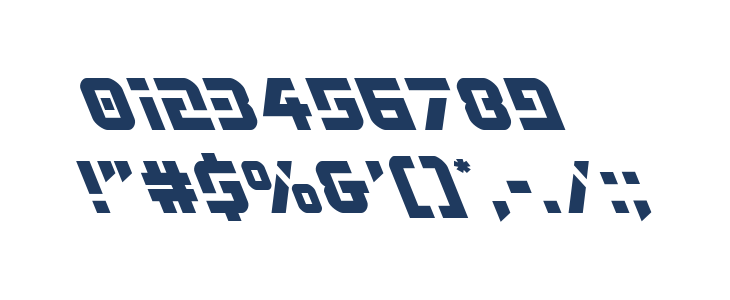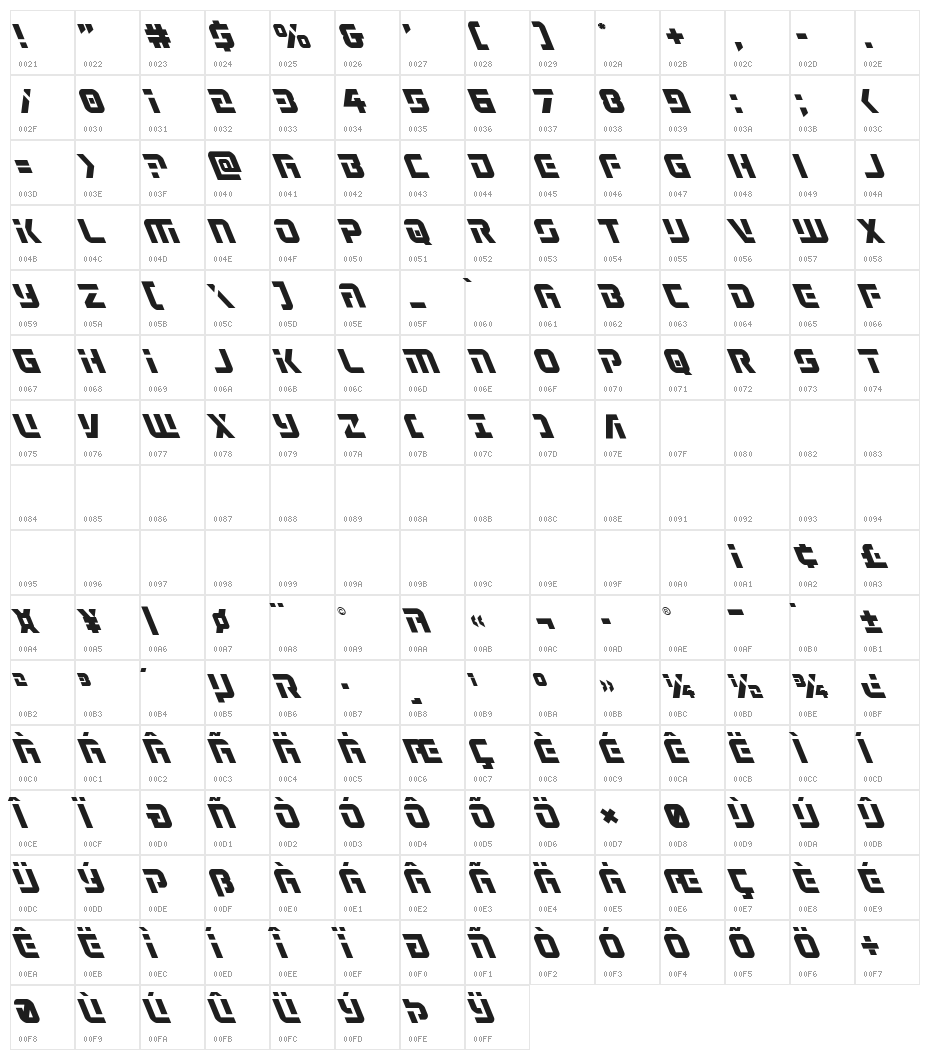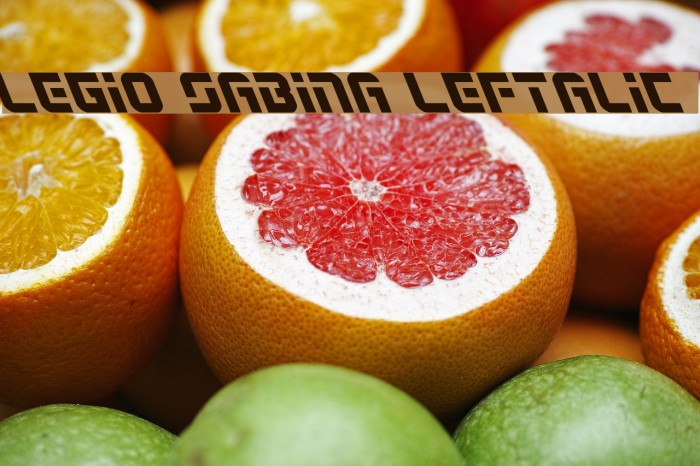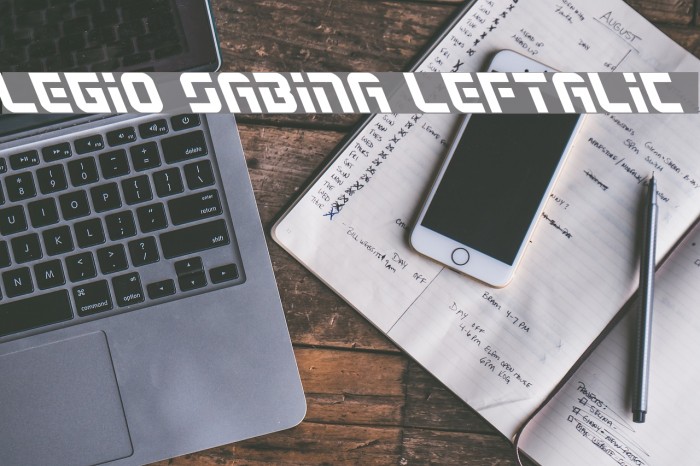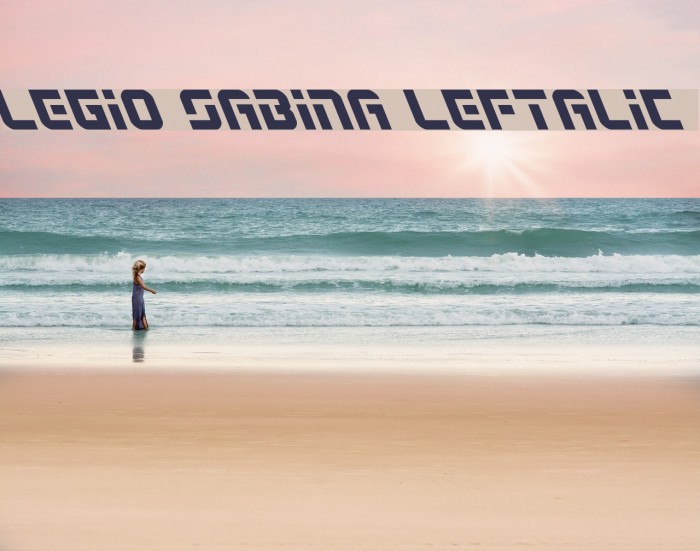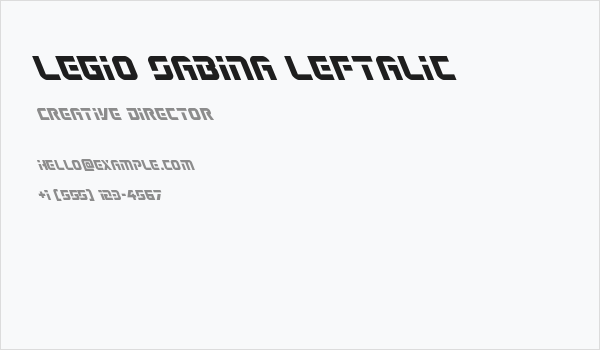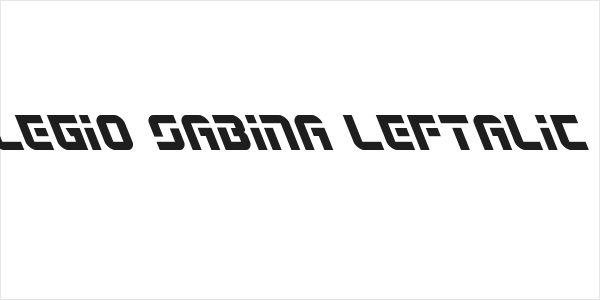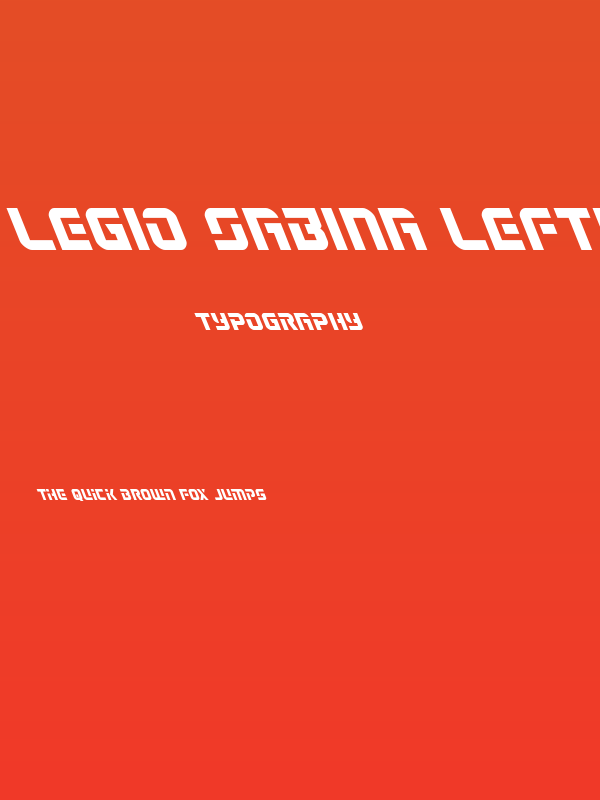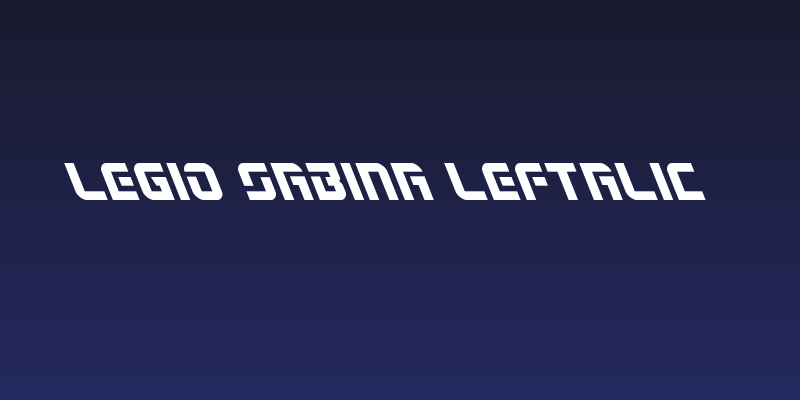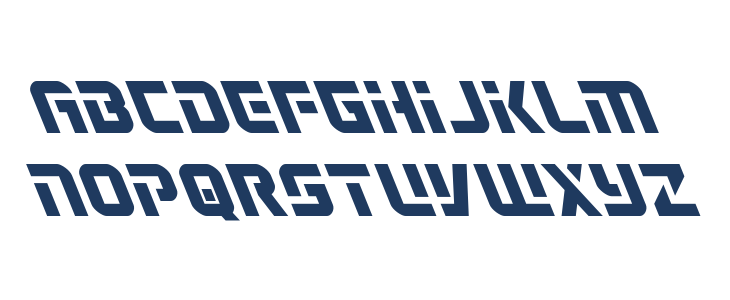
Legio Sabina Leftalic Font
Legio Sabina Leftalic Description
This font features a bold, angular design with a futuristic and dynamic appearance. The characters are slanted to the left, giving a sense of motion and energy. The strokes are thick and consistent, creating a strong visual impact. The geometric shapes and sharp edges contribute to its modern and edgy style. It is highly legible and makes a statement with its unique and striking form.
| Proposed Projects | Ideal for sci-fi themed projects, video game titles, sports branding, and modern posters. |